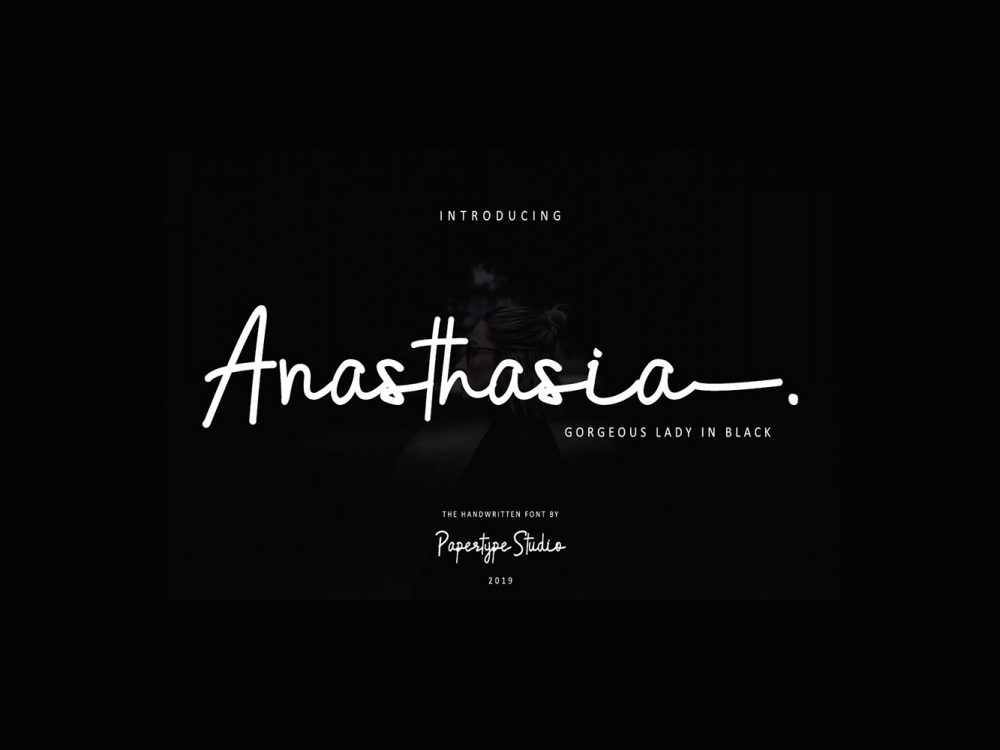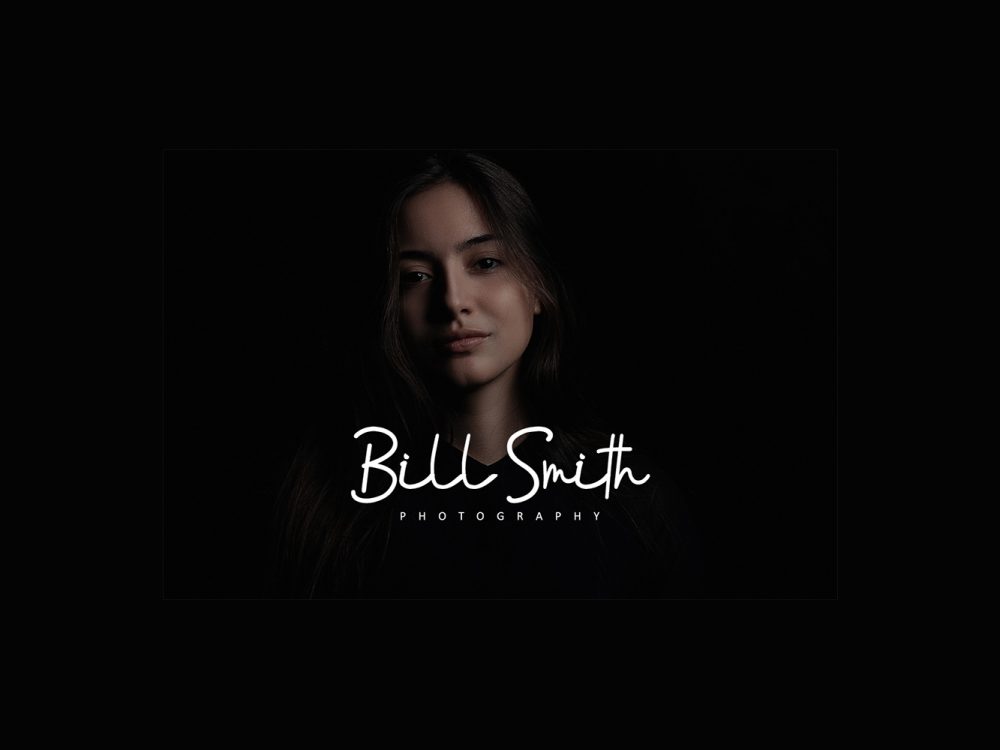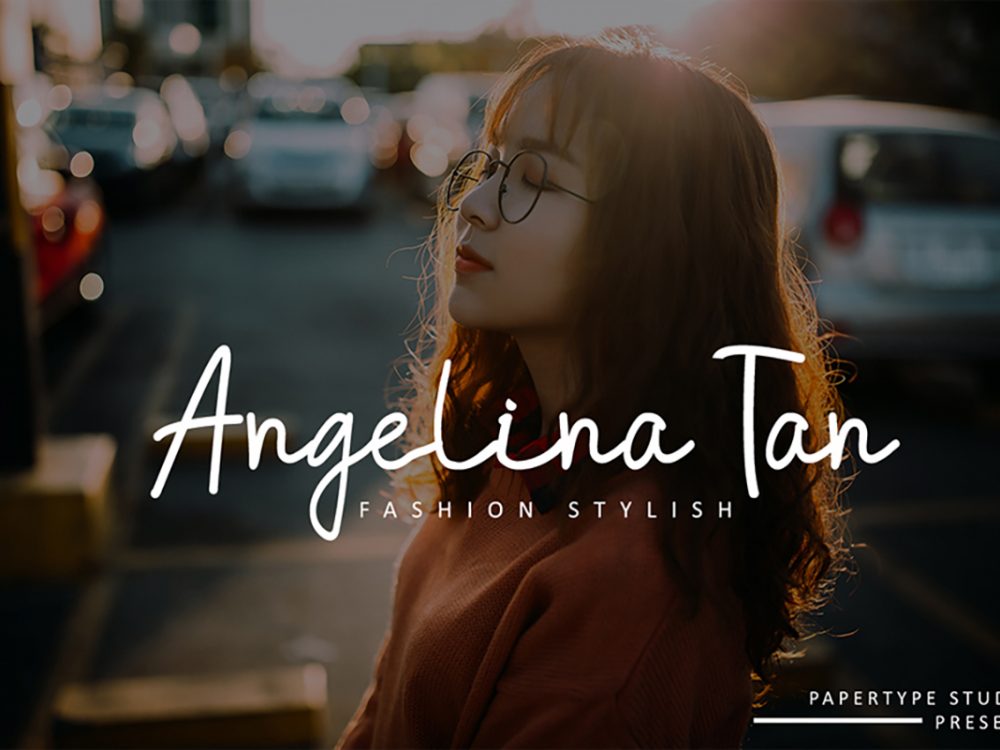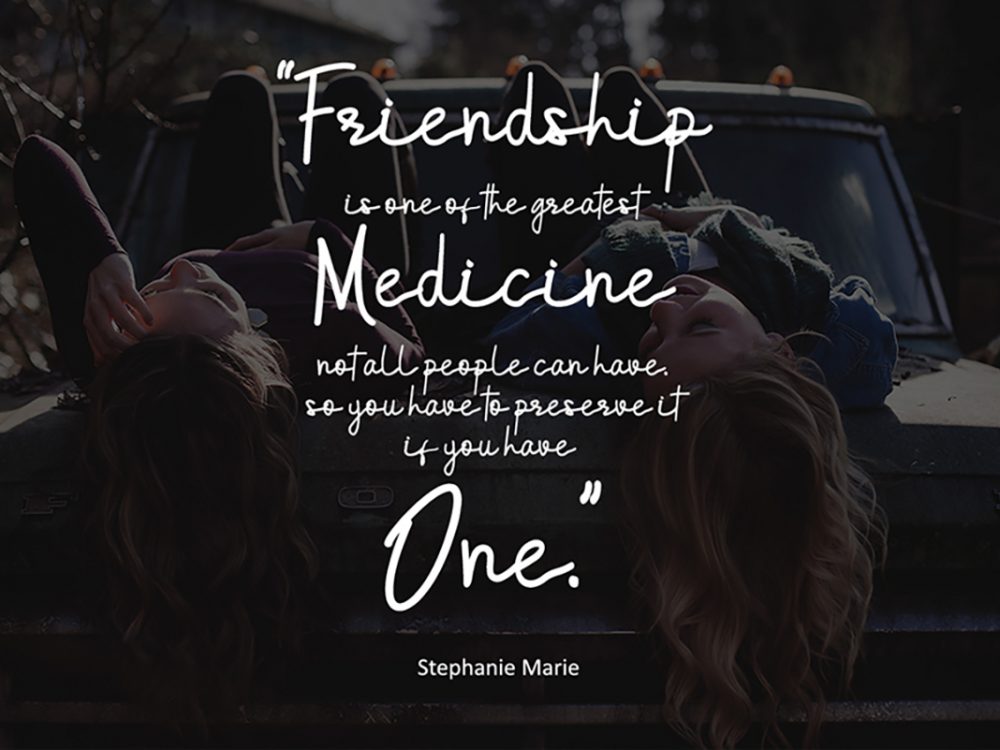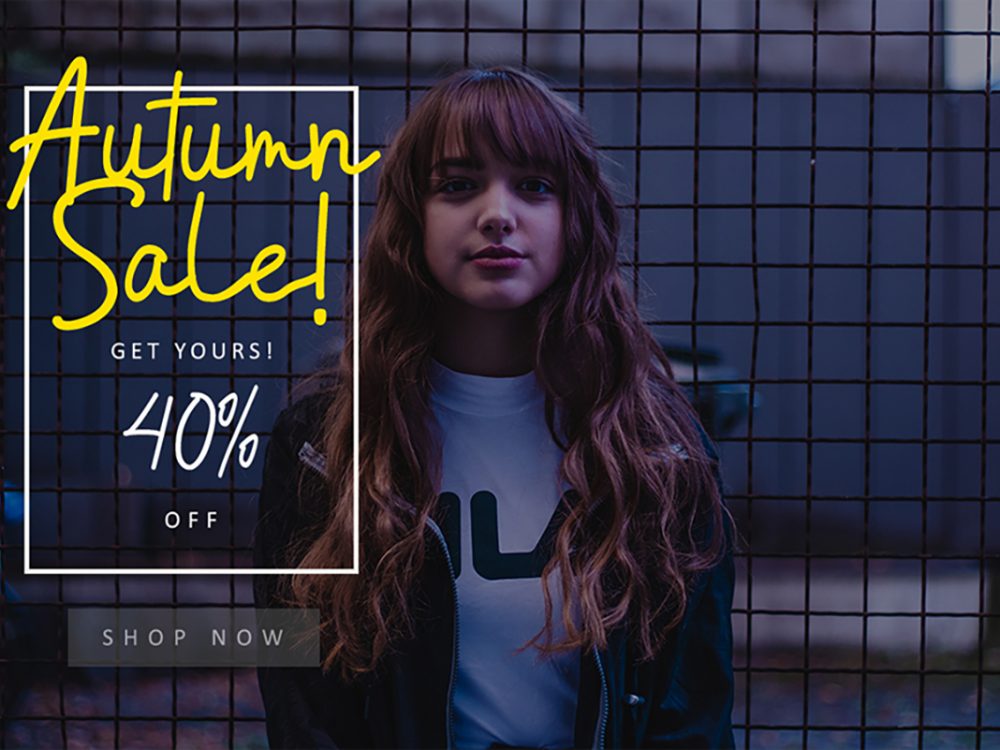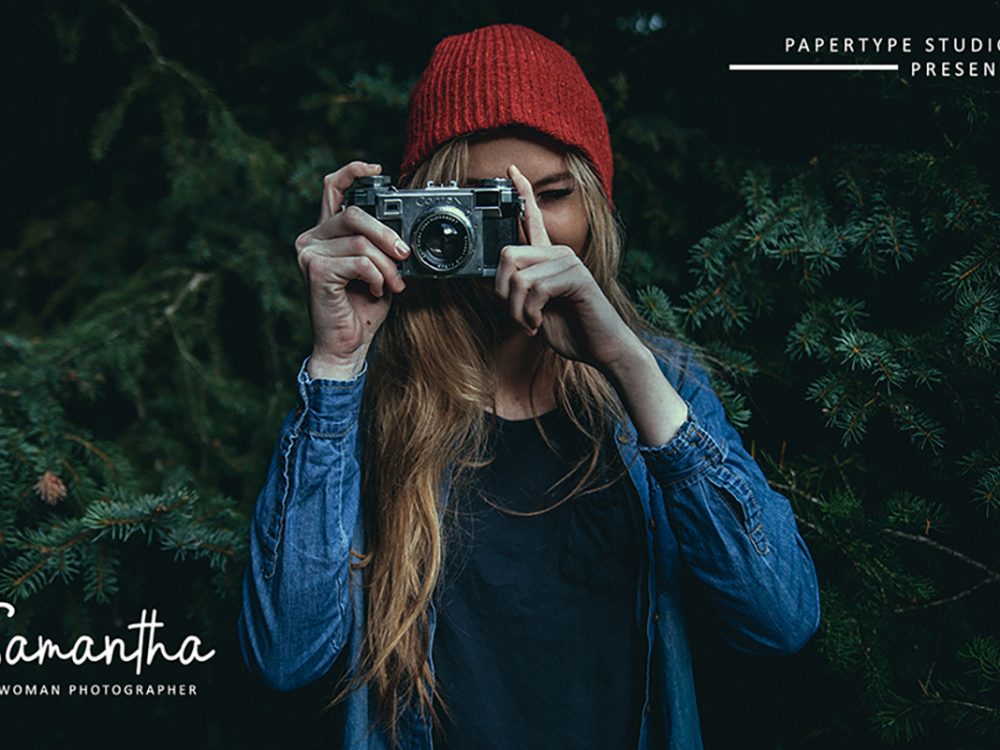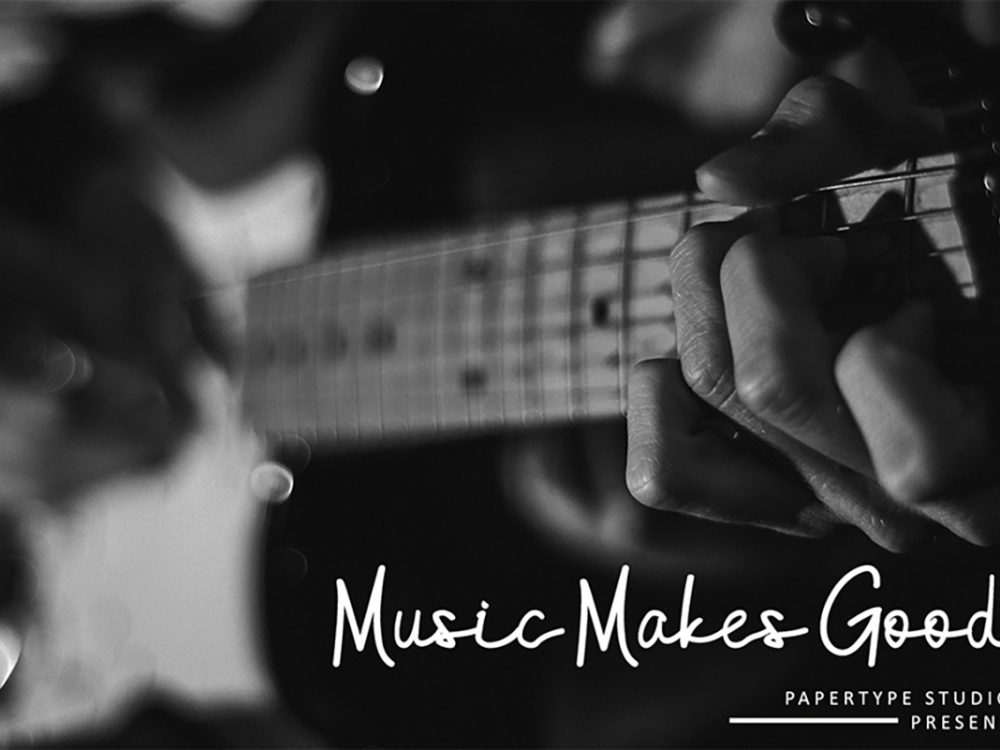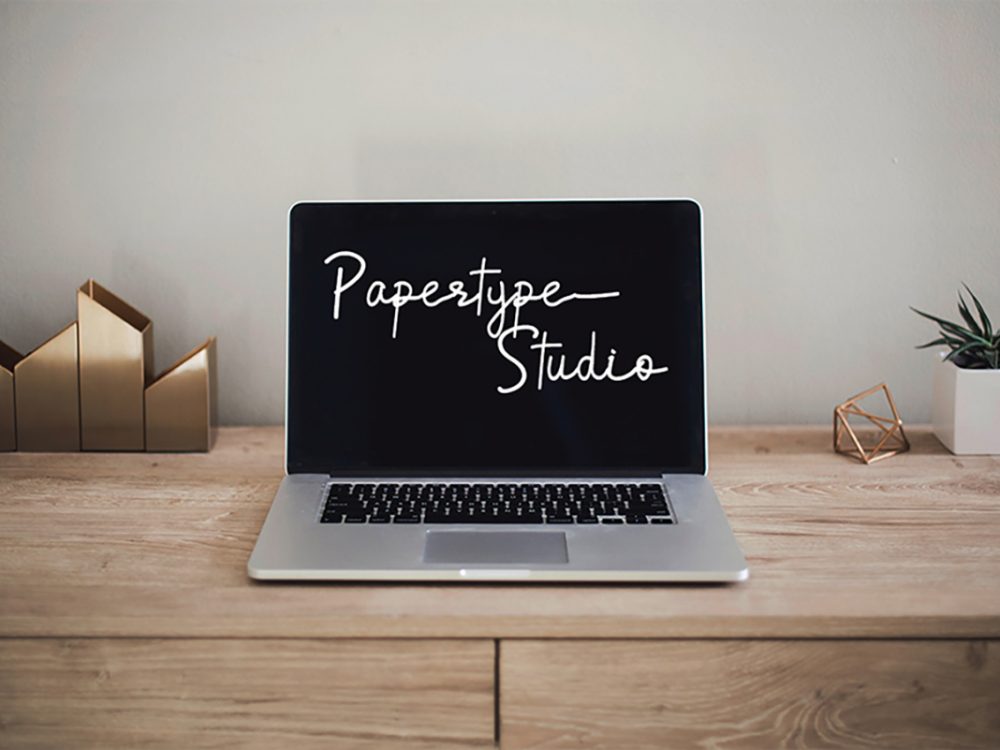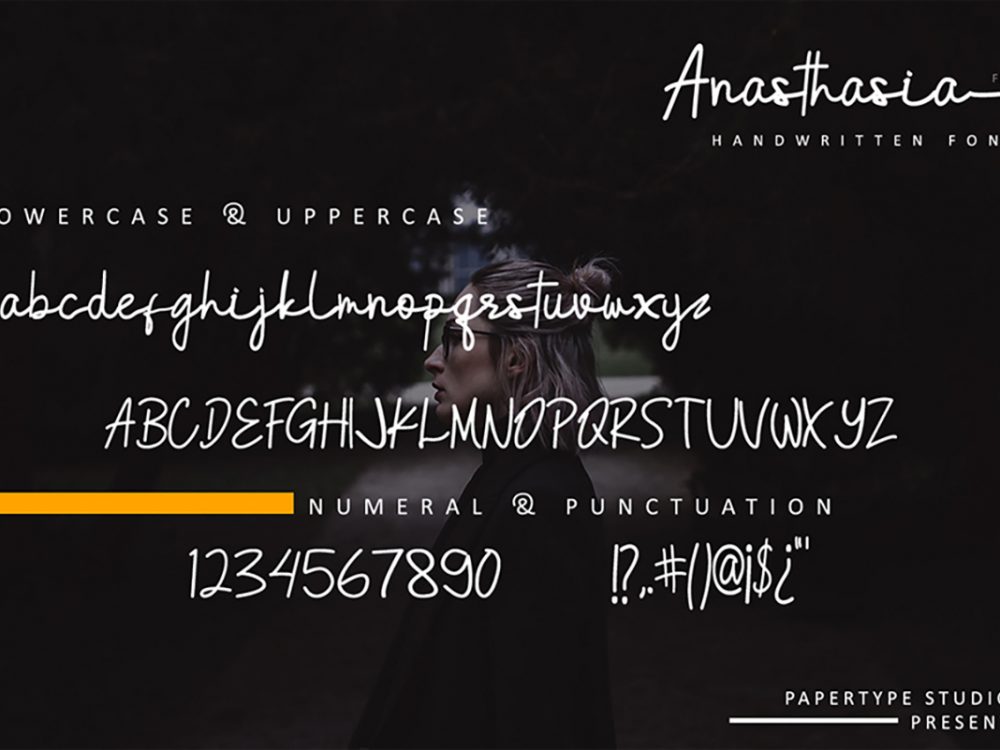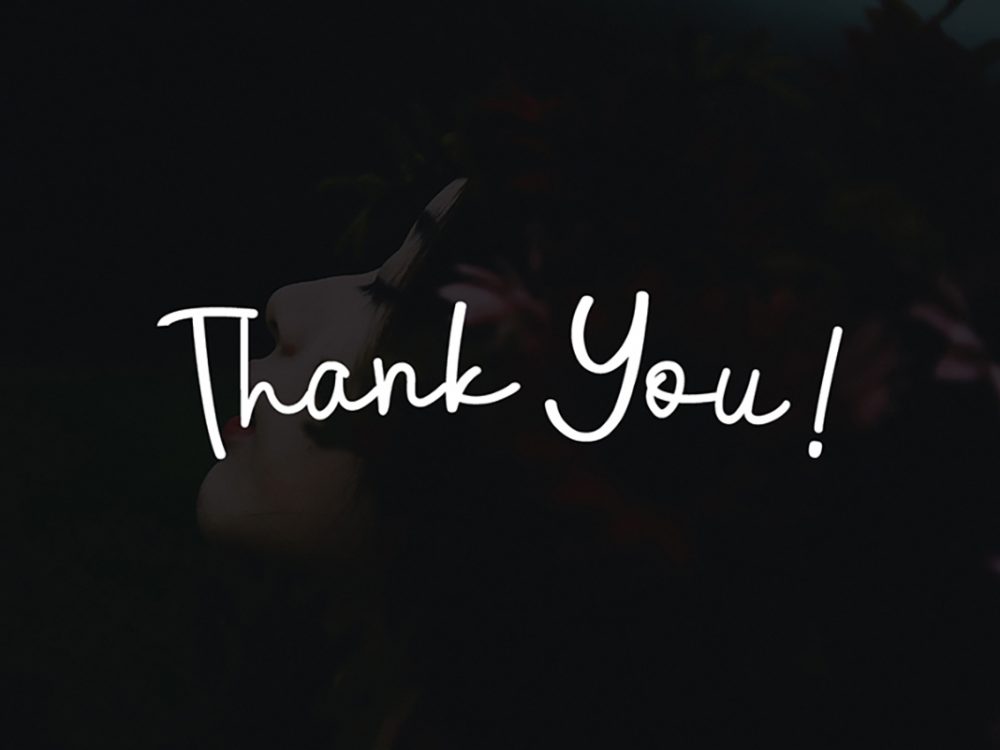
Anasthasia Handlettering Script Font
Anasthasia Handlettering Script Font is a beautiful modern font made in a handwritten style that can easily give your project uniqueness and originality. You can use this font to create various design projects. These can be branding, cards, flyers, watermarks, invitations, prints, and more.
Author: Papertype Studio